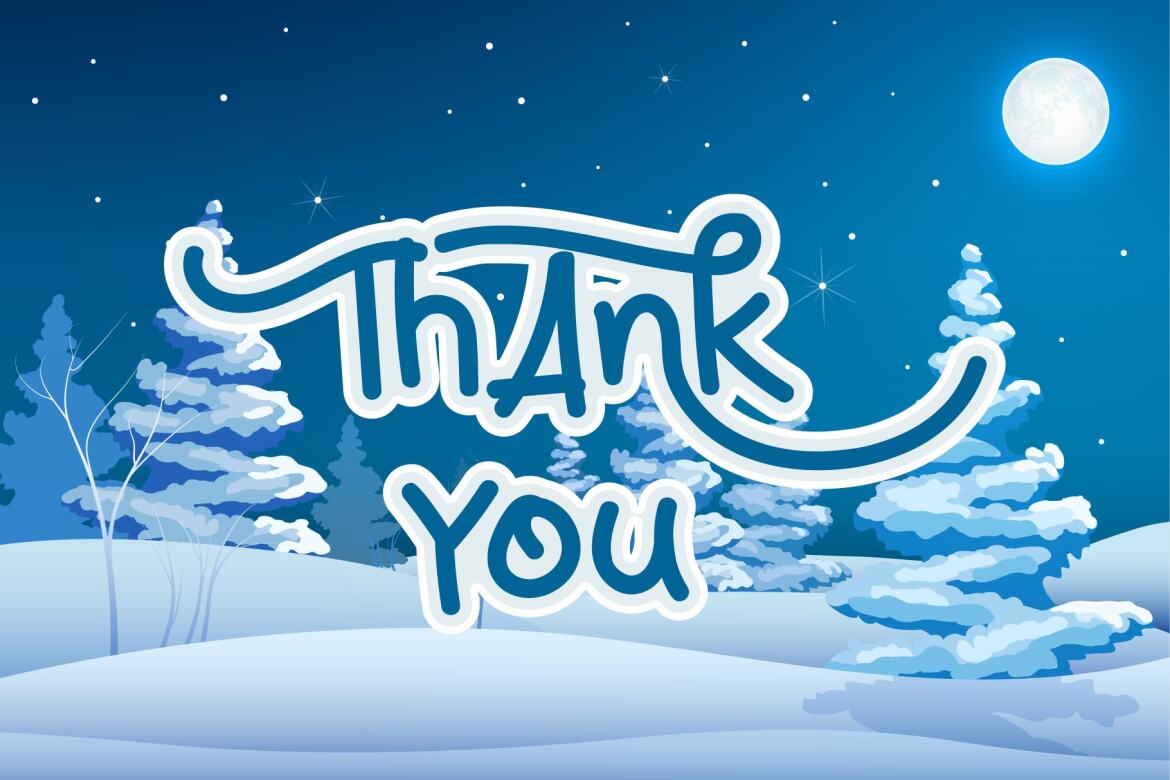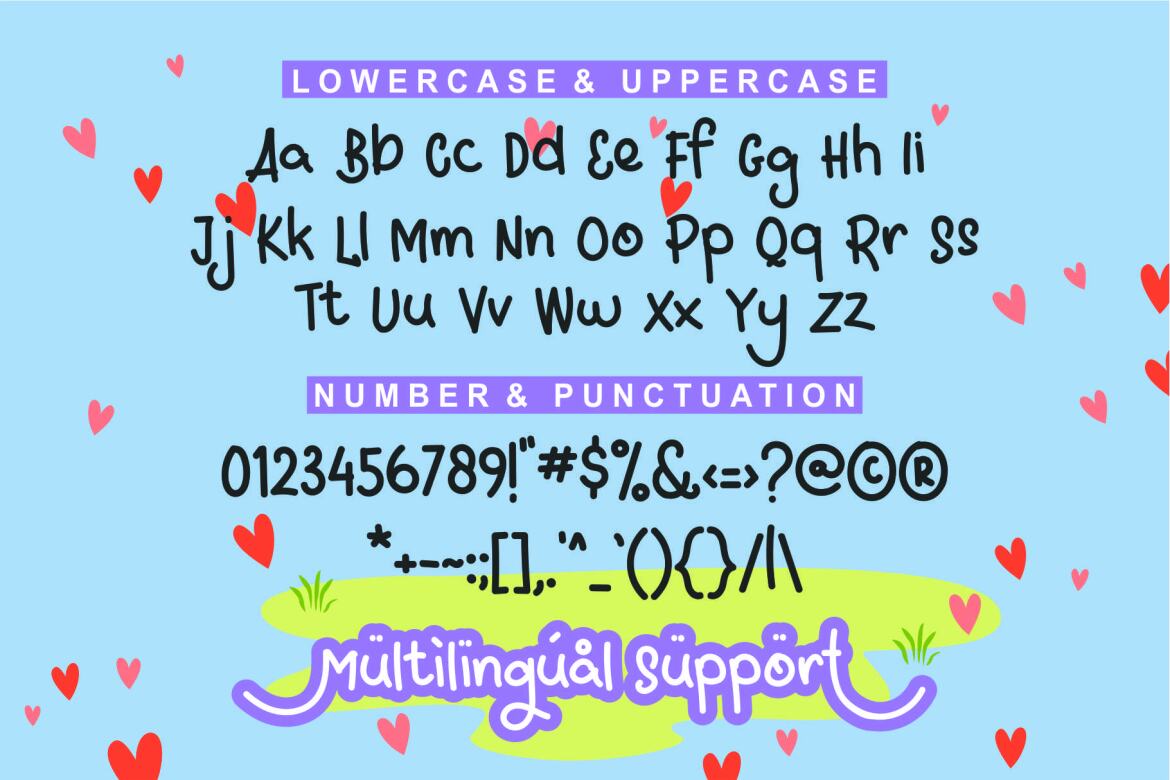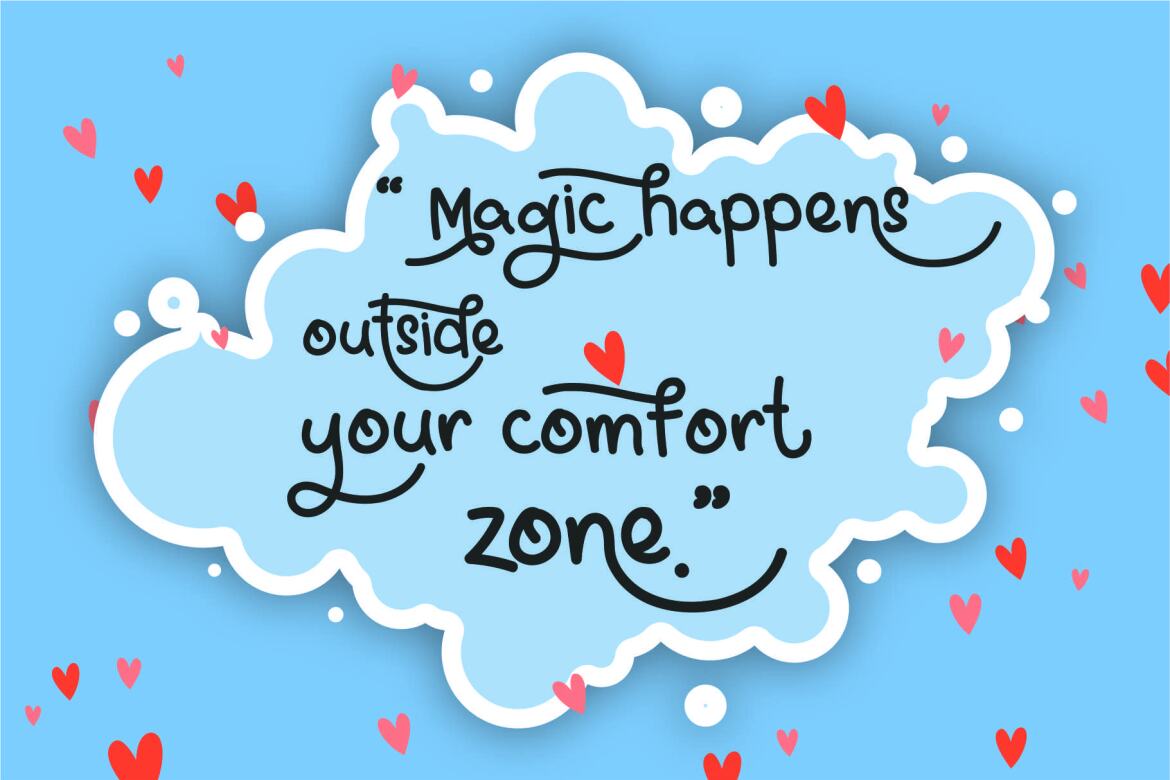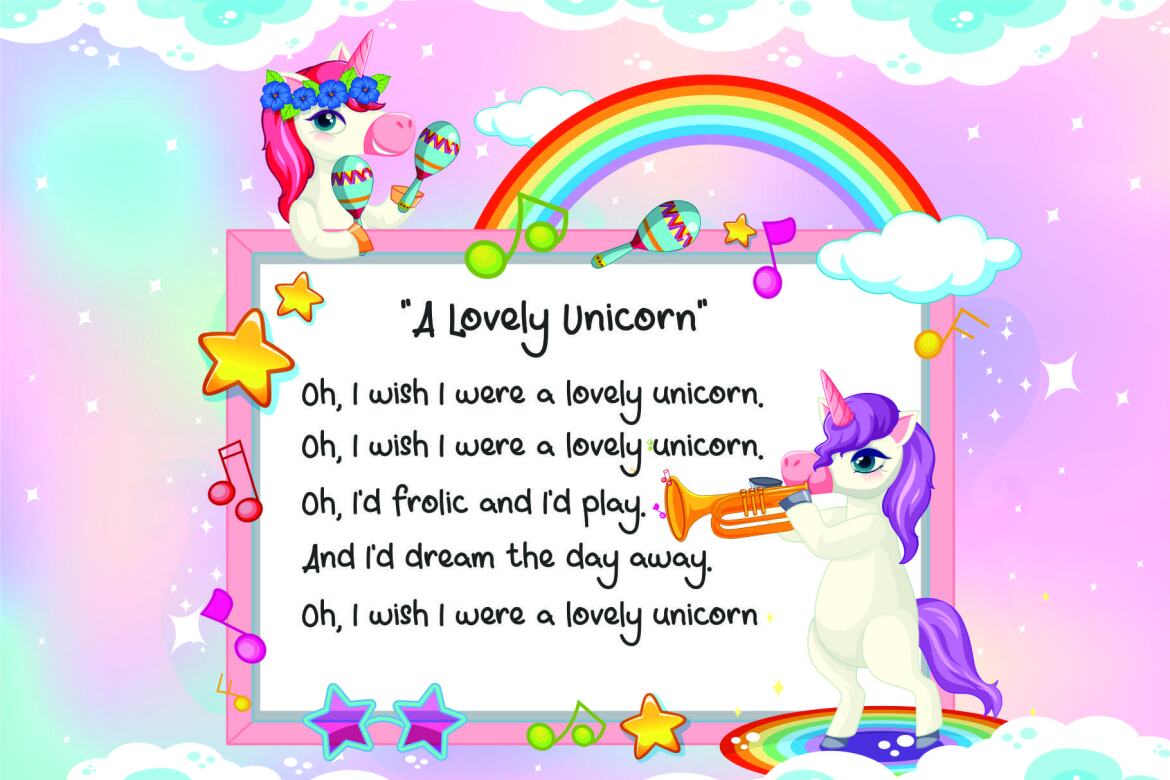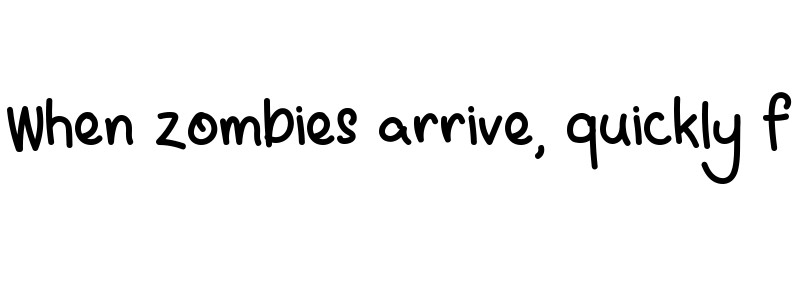
Tight Hug - Free Playful Font
Tight hug preview
Tight hug
this Tight Hug font, Made with love and joy. Comic look, Bold, Thick, so it will make your design more beautiful, cute, fun, and colorful. you can use this font for any design, such as logo, poster, advertise, packaging, and much more. with swash and awesome alternates inside.